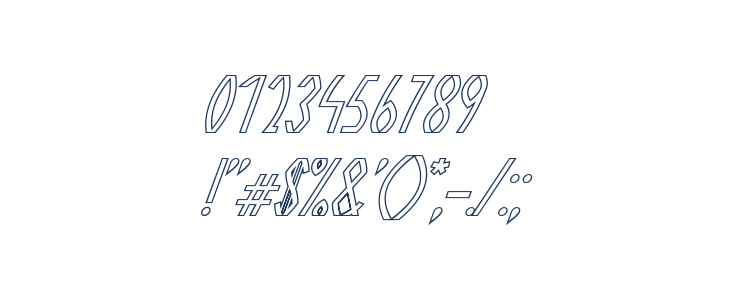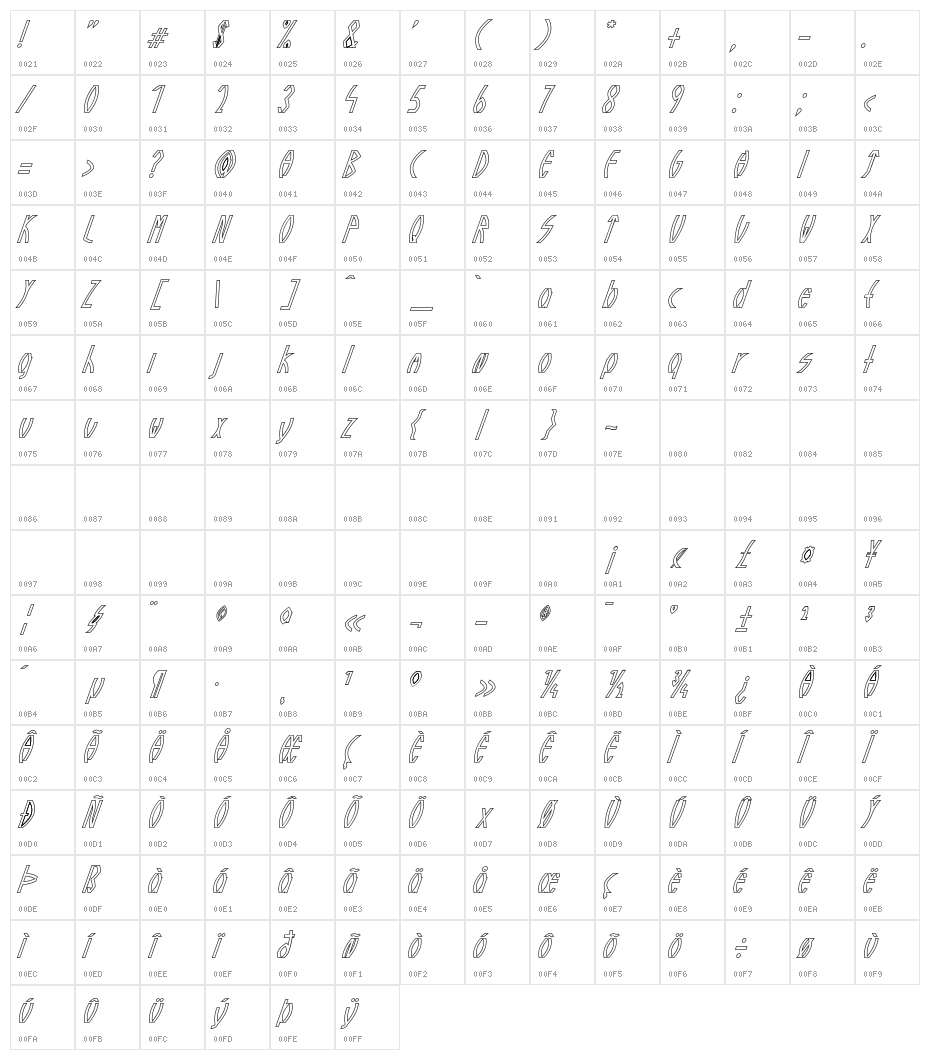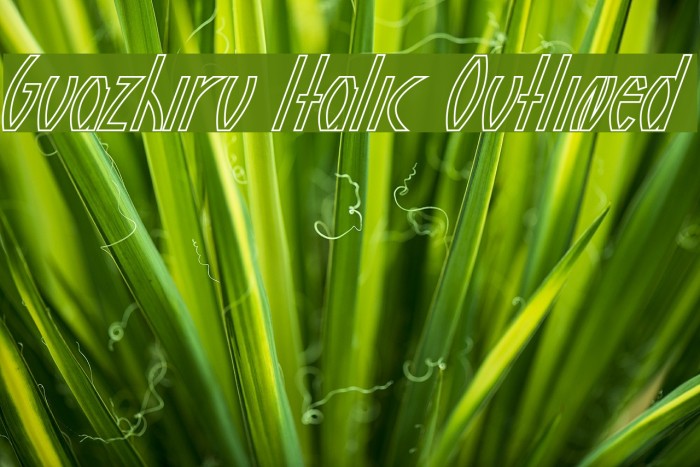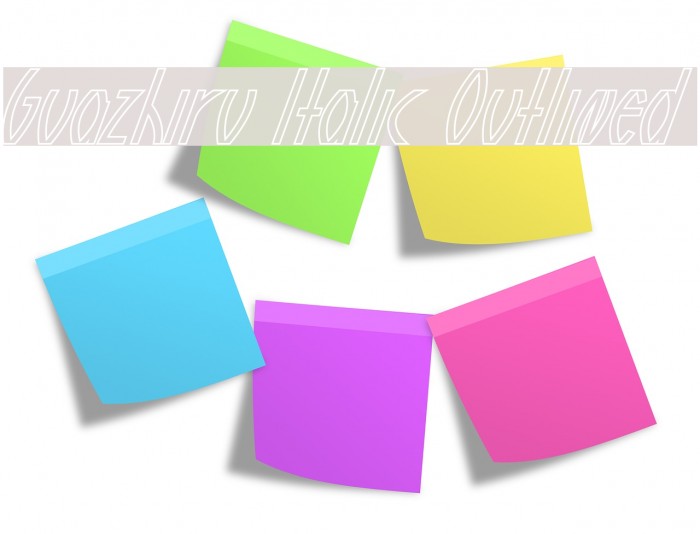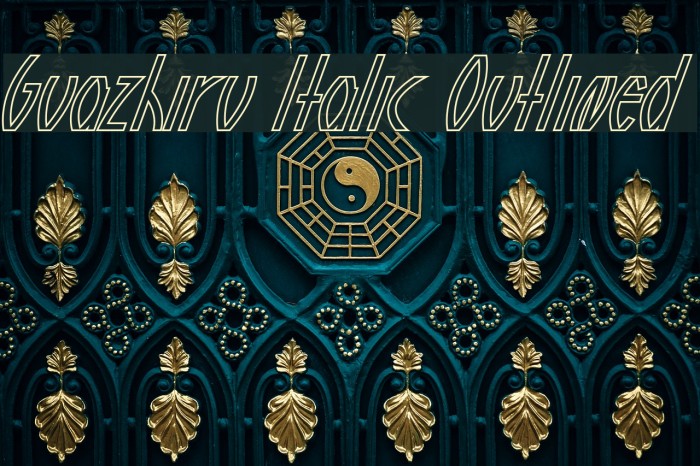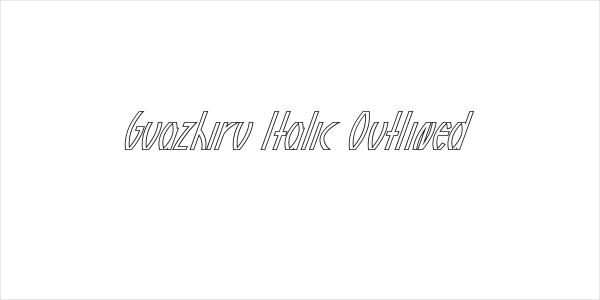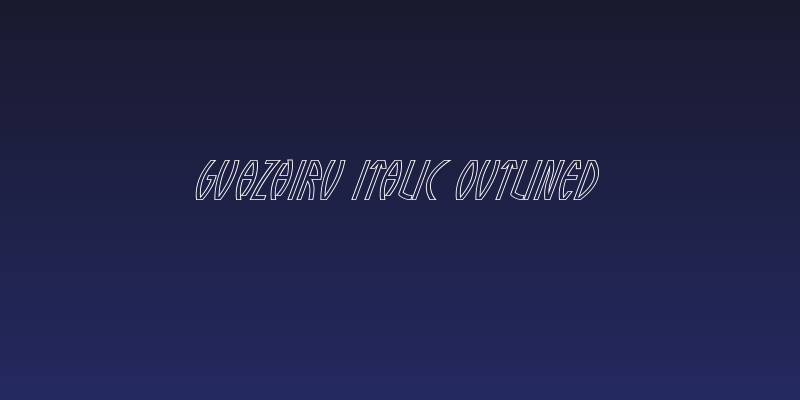
Guazhiru Italic Outlined Font
Guazhiru Italic Outlined Description
This font features a unique outlined style with an italic slant, giving it a dynamic and modern appearance. The characters are elongated and slightly condensed, with sharp angles and clean lines that create a sense of movement and energy. The uppercase and lowercase letters maintain a consistent style, while the numerals and special characters complement the overall design. This font's outlined nature makes it stand out, offering a bold yet elegant look suitable for various creative applications.
| Proposed Projects | Ideal for branding, posters, headlines, and any design requiring a bold, modern touch. |